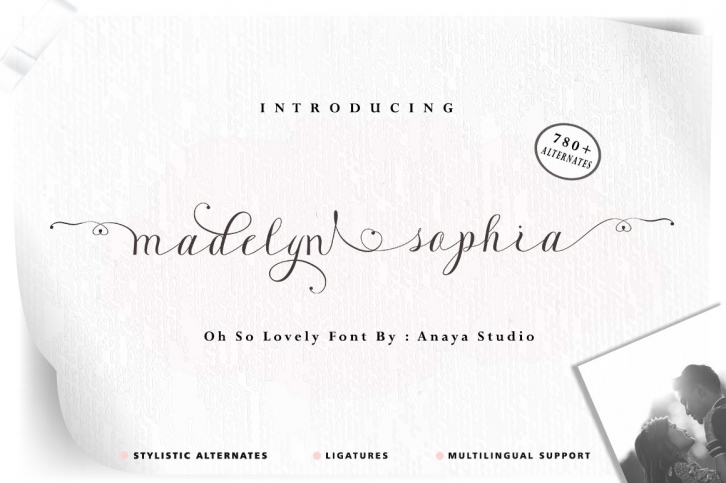
Madelyn Sophia is a trendy and unique font with an authentic style. It was designed by Anaya Studio and it's a great choice for creative people who need such a font. It was released on March 1, 2022 and the file size is 5.22 MB. Madelyn Sophia will add an organic vibe to any design idea!